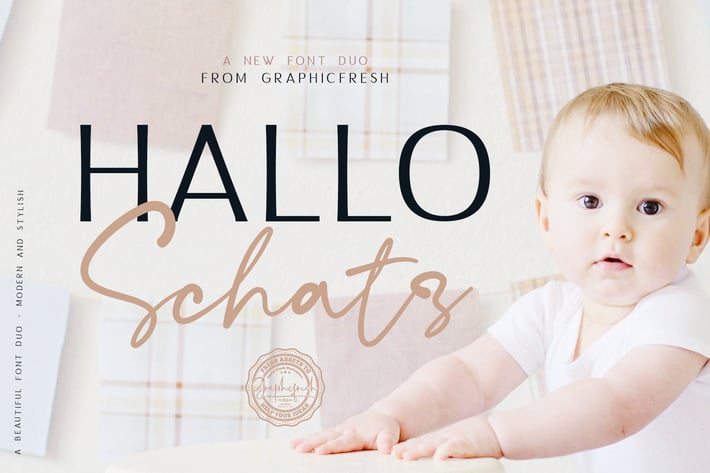
Hallo Schatz Font Duo
Introducing Hallo Schatz Font Duo!. It comes with an elegant and striking style which is perfect to make any design stand out! This font is perfect for branding, wedding invites, magazines, mugs, business cards, quotes, posters, and more.
Hallo Schatz Type Features:
1. Uppercase
2. Lowercase
3. Numerals & Punctuations
4. Non-Western English
5. PUA Encoded
6. Suitable for Headlines, Logotypes, Signs, Posters, Letterhead, T-Shirt and many more.